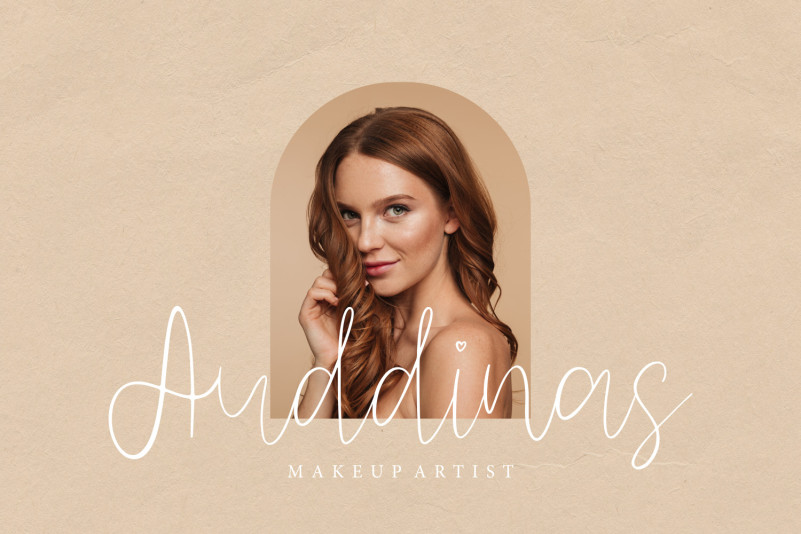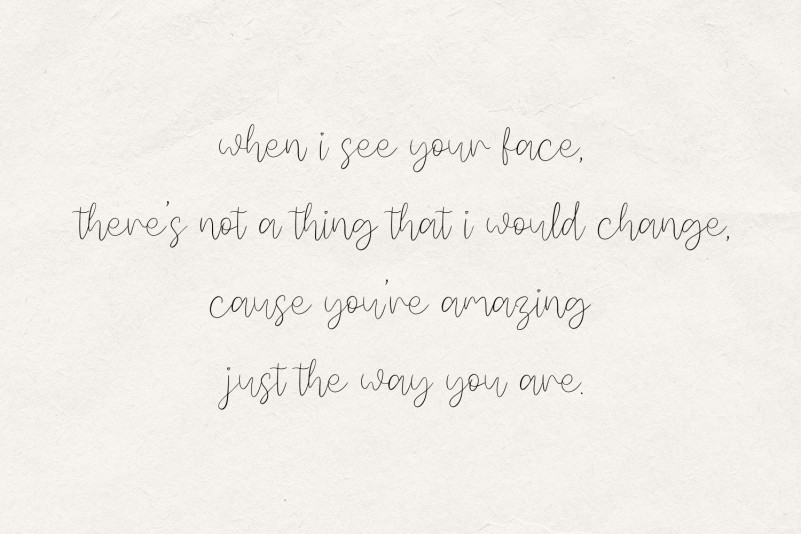
Calinea Font
Calinea Script Font is a flowing handwritten font, described by an elegant touch, perfect for your favorite projects. Fall in love with its incredibly distinct and timeless style and use it to create spectacular designs!